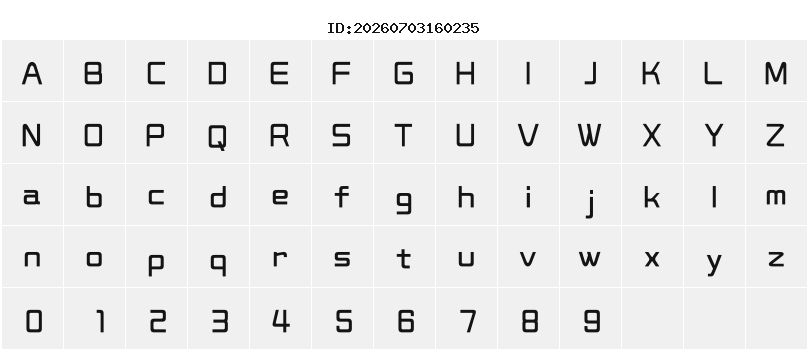
142-上首综艺体 Preview
• Font Name: 142-上首综艺体
• Font ID: 142-SS Zong Yi Ti:Version 6.00
• Full Font Name: 142-上首综艺体
• Version: Version 6.00 February 24, 2025
• PostScript Name: 142-SSZongYiTi
• Character Count: 7569
• Manufacturer: 上首造字
About 142-上首综艺体.ttf
142-上首综艺体.ttf is a modern, elegant sans-serif font designed for ultimate readability and visual harmony. Perfect for branding, headlines, web design, and print materials.